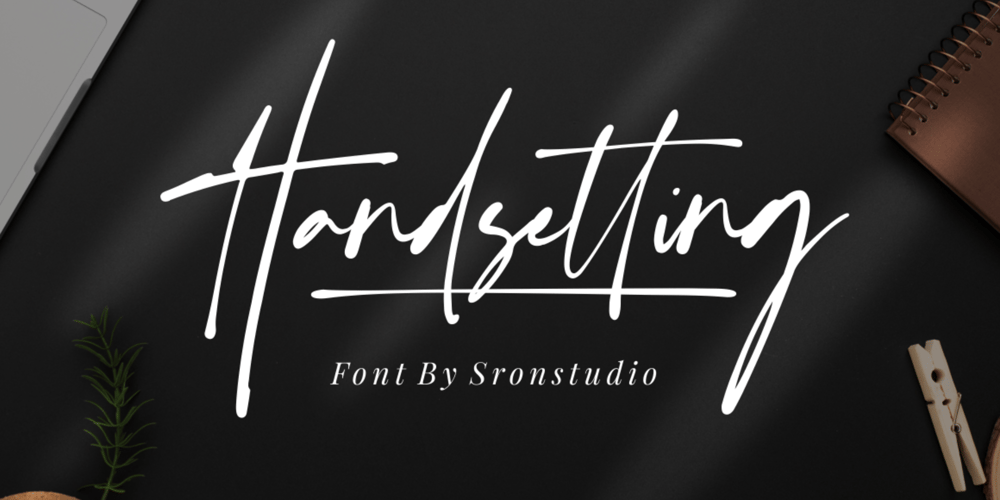
Handsetting Font Family was designed by Muhamad Yusron Billah and published by Sronstudio. Handsetting contains 1 styles and family package options. Introducing Handsetting – Modern SignatureHandsetting is a stylish signature font perfect for branding, invitation, stationery, wedding designs, social media posts, advertisements, product packaging, product designs, label, photography, watermark, special events, or anything.Handsetting comes with full set of uppercase and lowercase letters, ligatures, multilingual symbols, numerals, and punctuation.If you have any questions please don’t hesitate to drop me a message :)Thank You, Sronstudio